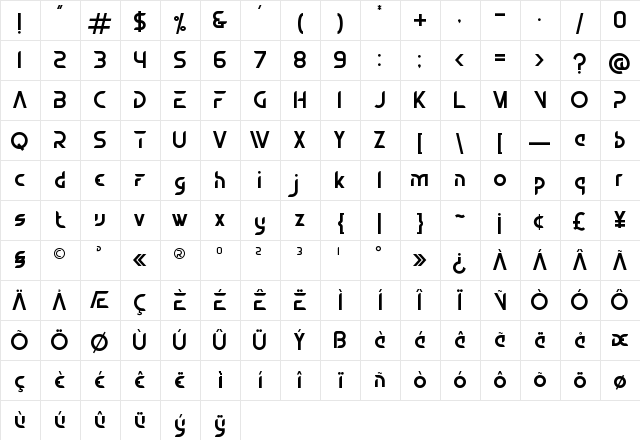
Chambers Regular
| Foundry | Kong font |
| Designer | Kong font |
Design Context for Chambers Typeface
Chambers takes a measured approach to typography — its balanced proportions and neutral character make it a reliable workhorse for both digital and print work.